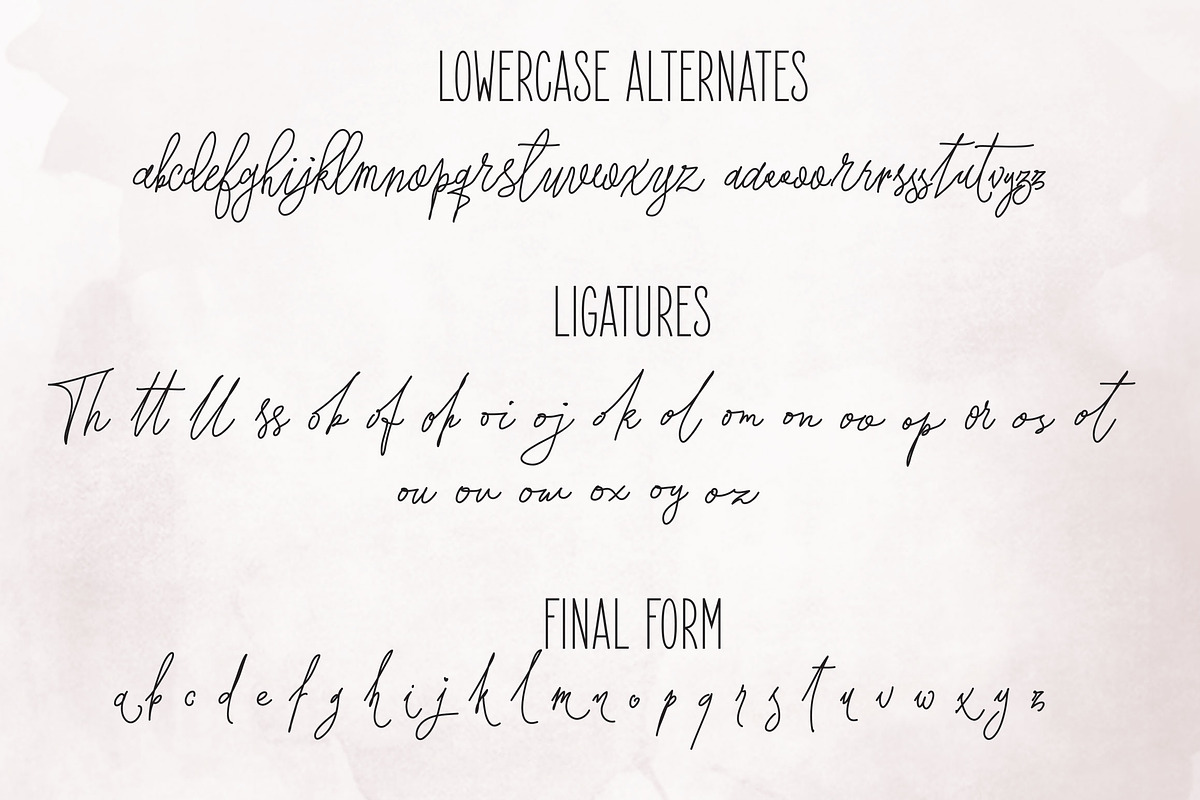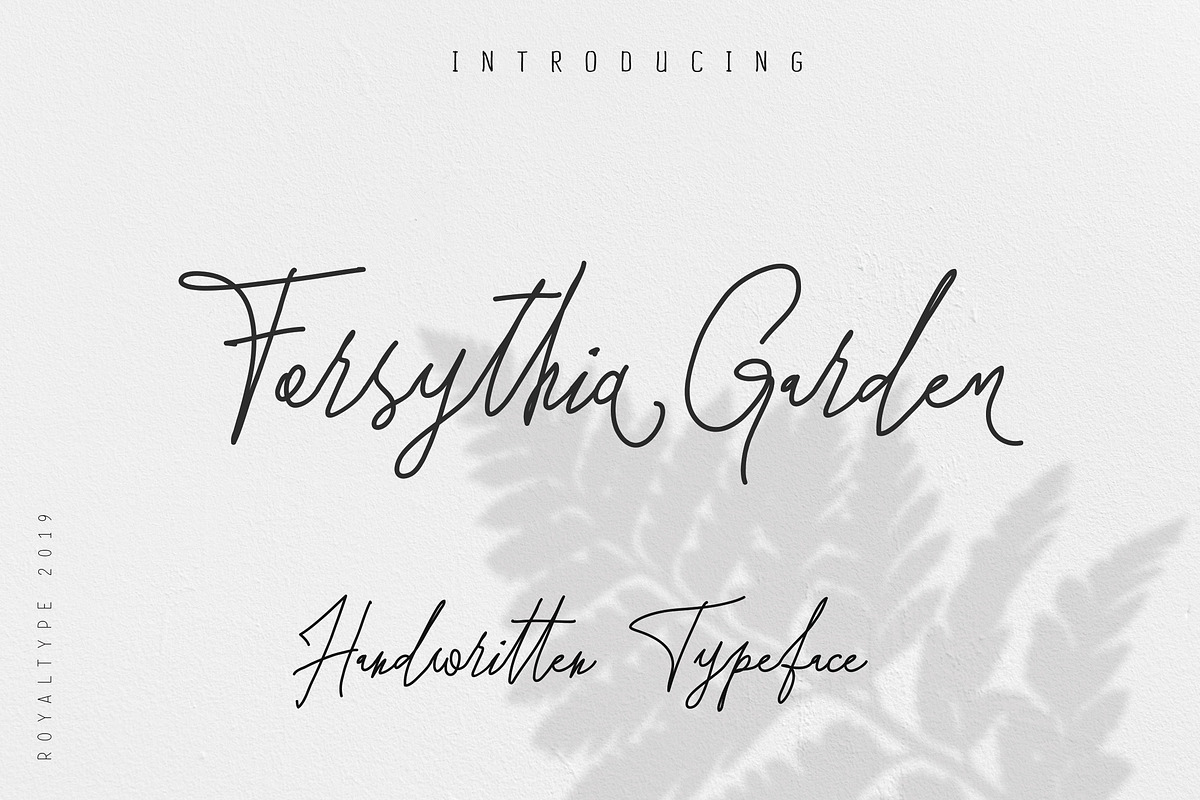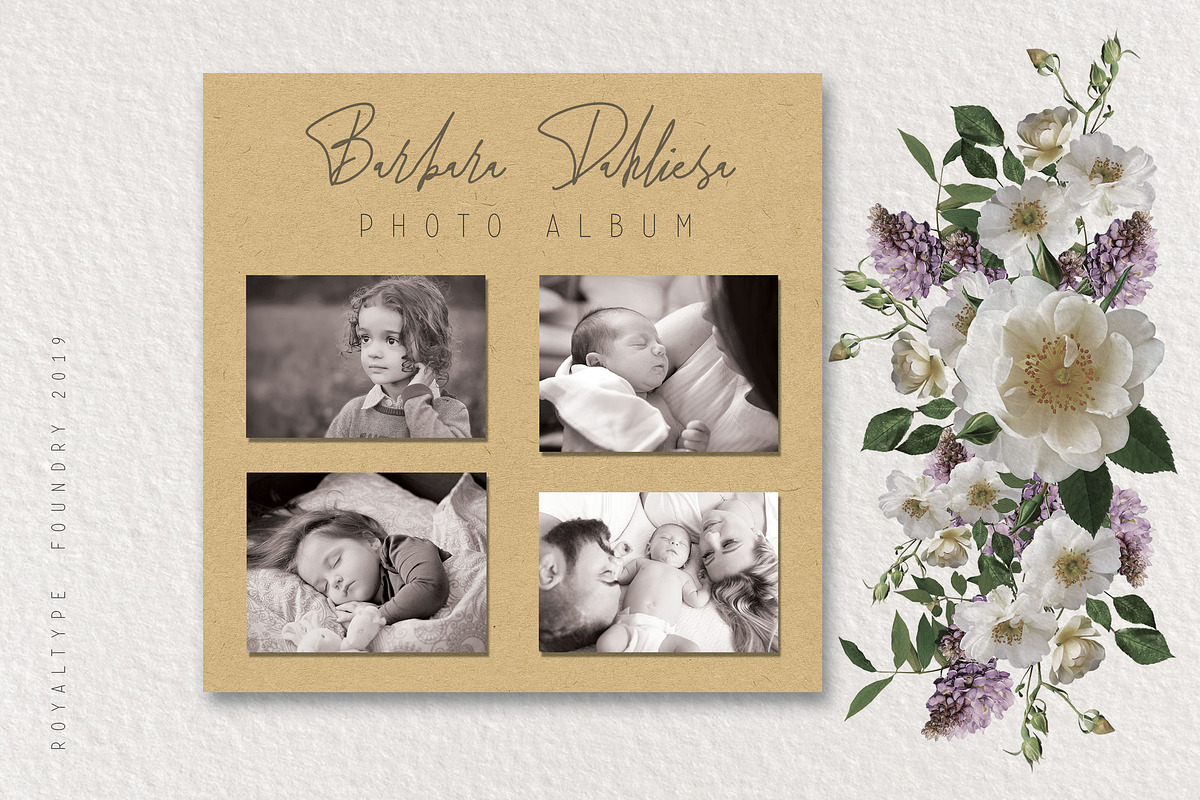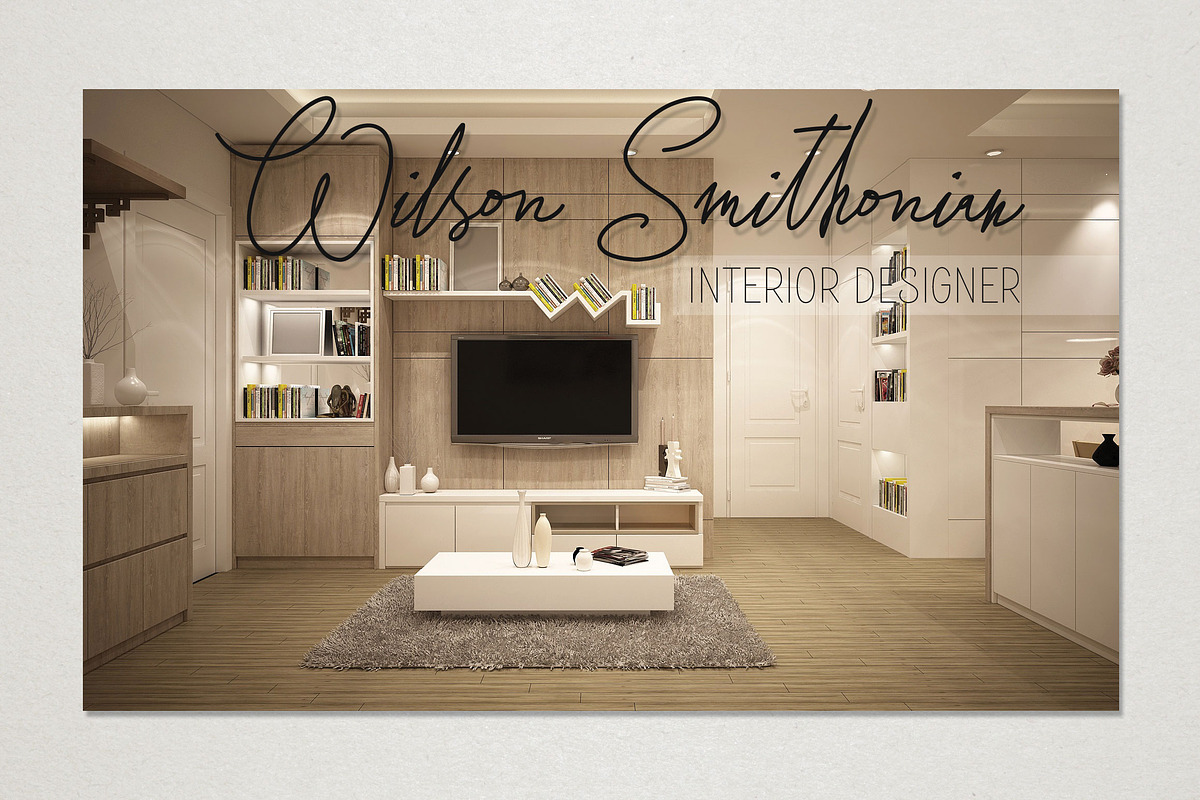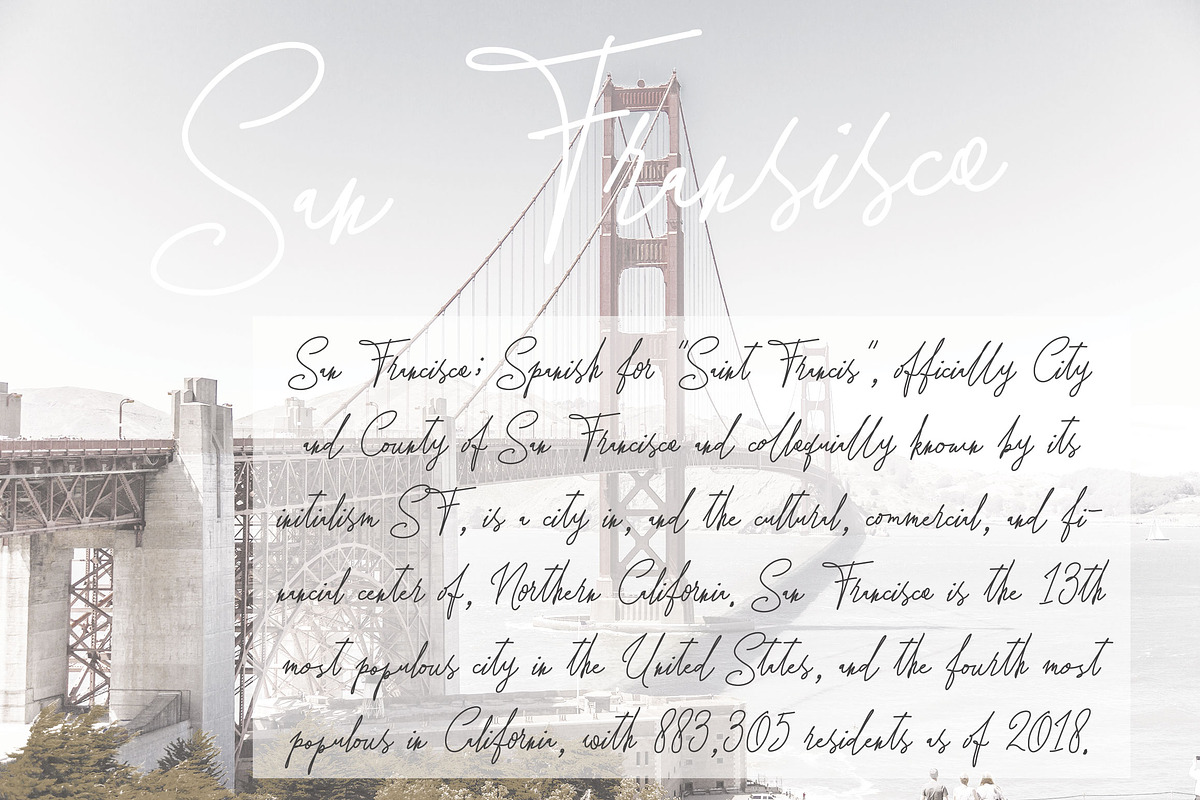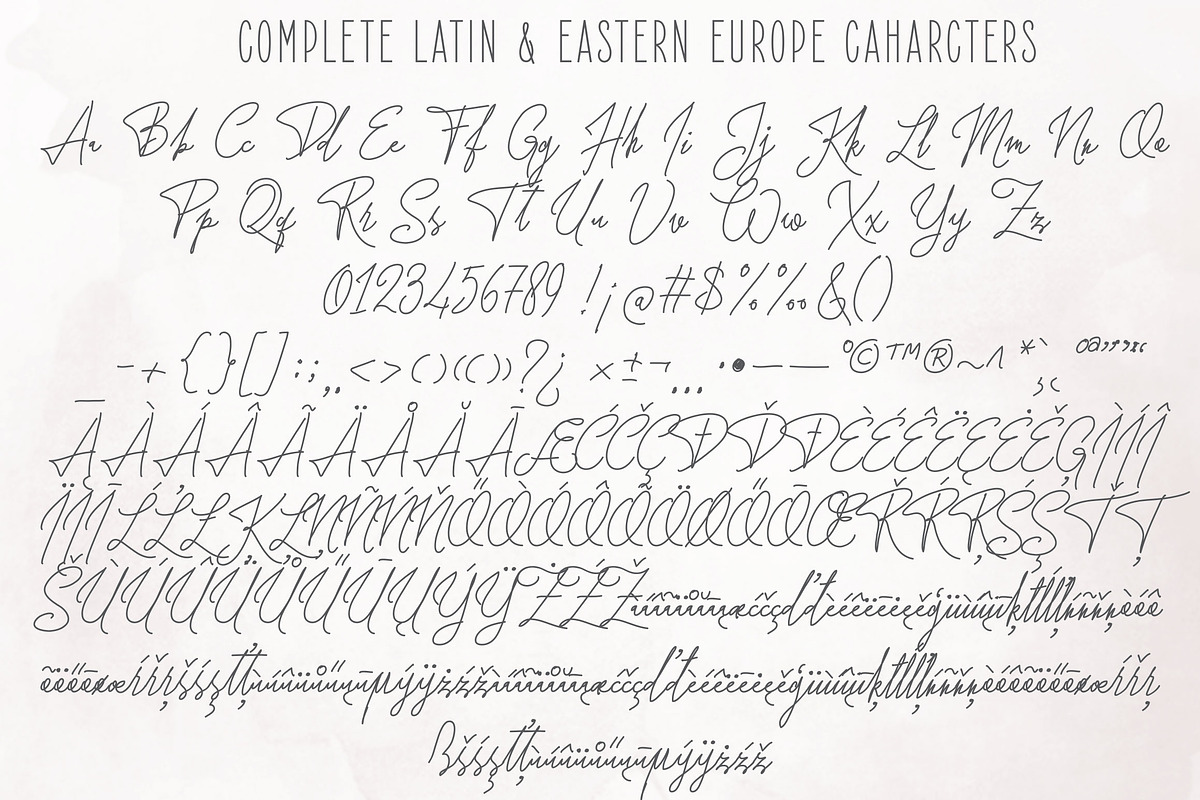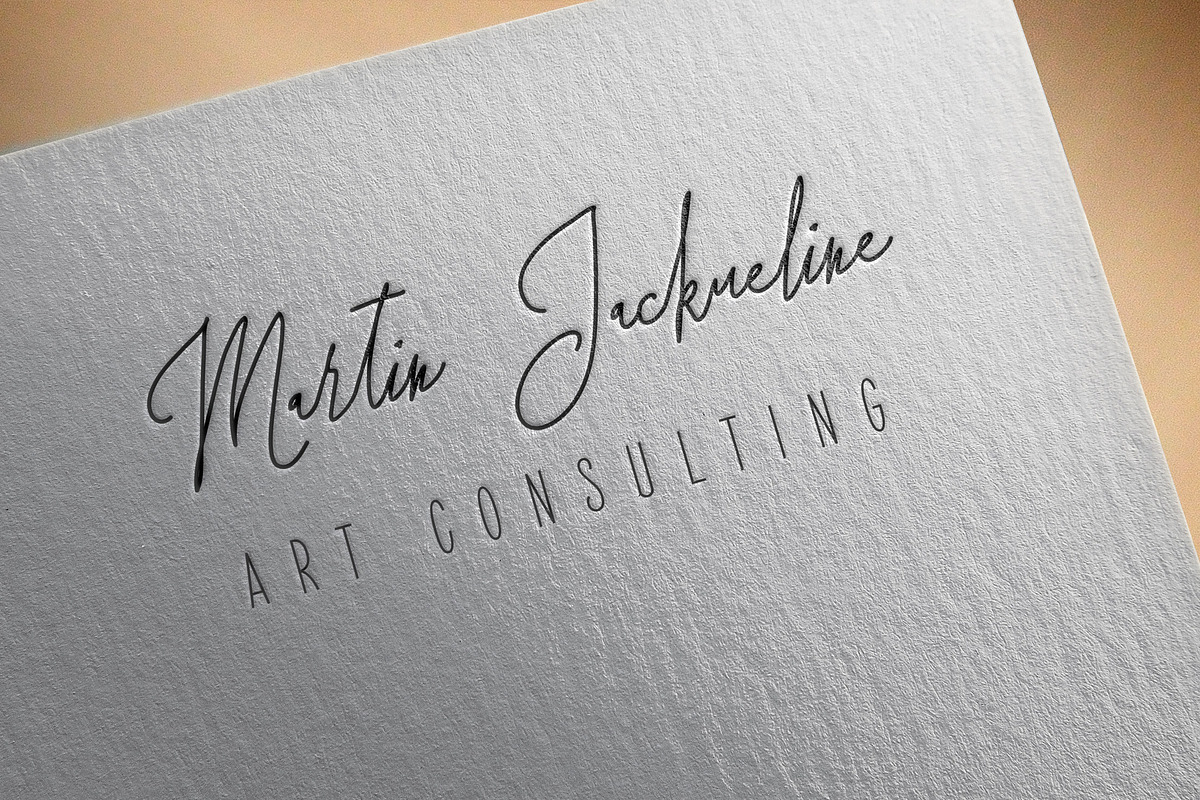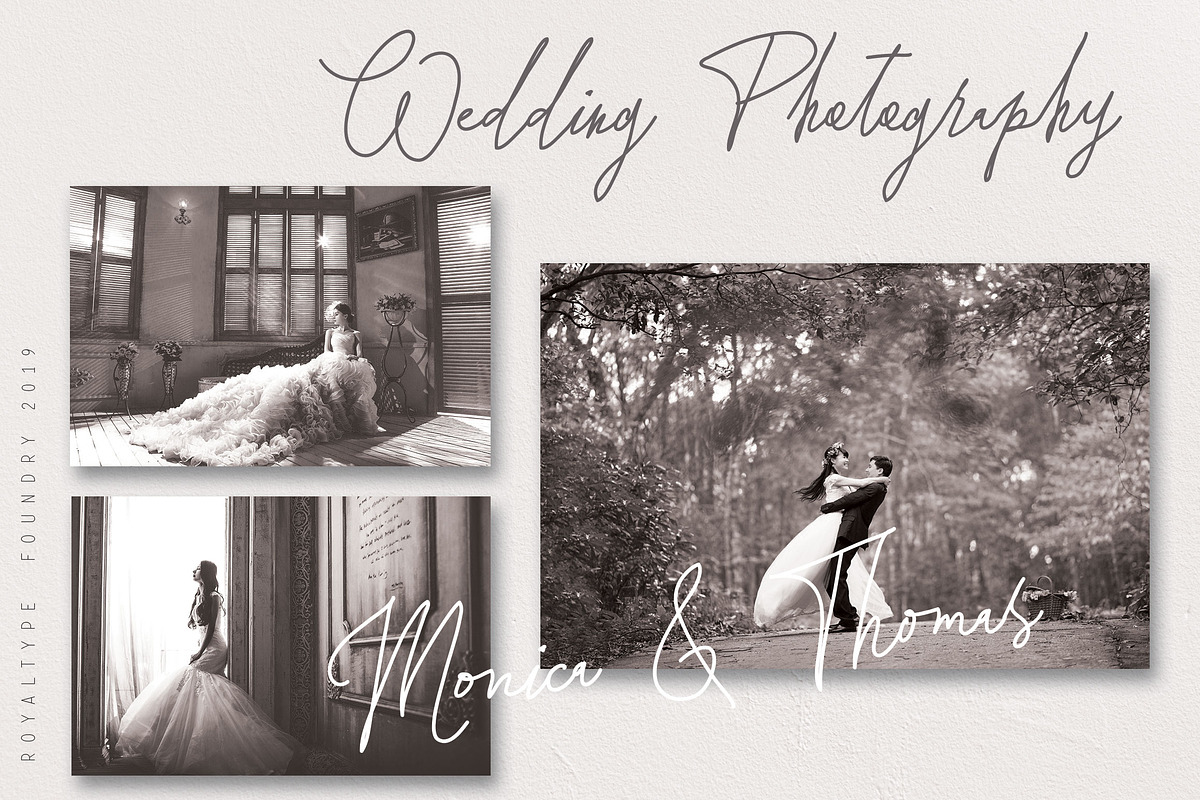
Forsythia Garden |Signature Typeface
Introducing a new signature typeface, named as Forsythia Garden, a beautiful flower. This font, will nice for logo, title, subtitle, or text, for wedding invitation, t-shirt, mug, flyer, book, flyer, etc.
Supported to Latin and Eastern Europe characters
71 lowercase alternate characters
- Supported to Latin and Eastern Europe characters 71 lowercase alternate characters 27 ligatures PUA encoded font Thank you!